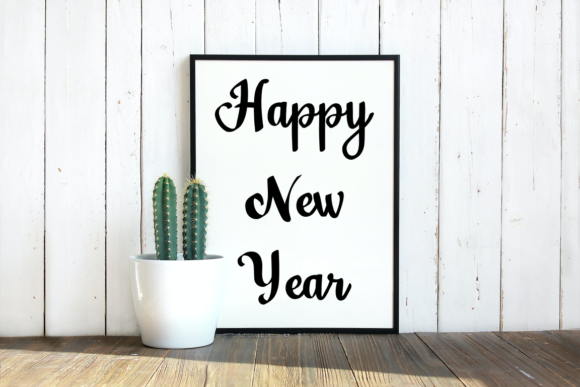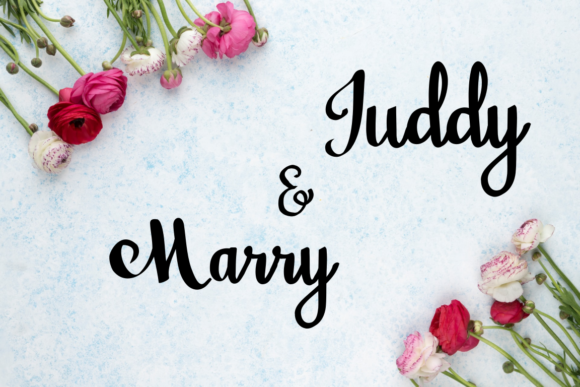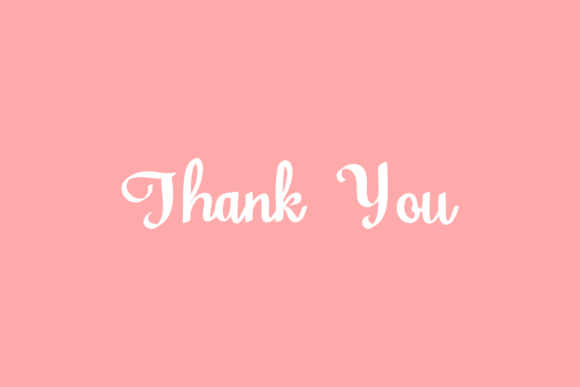
The Elegance of Anjani Font: A Designer’s Delight
I’ll never forget the time I was working on a wedding invitation project, and my client asked for a font that exuded elegance and sophistication. I scoured the internet, tried out countless fonts, but nothing seemed quite right. That was until I stumbled upon Anjani Font. ✨
Anjani Handlettering is an elegant script font with a contemporary atmosphere and impeccable form. Not too thin and not too thick, balanced and varied, this font was designed to enhance the beauty of your projects. In this article, I’ll share my experience with Anjani Font, its features, and how to make the most of it in your designs.
- ✨ Elegant and sophisticated feel, perfect for luxury brands and high-end designs
- ✅ Well-balanced and varied strokes, making it easy to read and visually appealing
- 💫 Supports OpenType features, allowing for creative freedom and flexibility
- 🎨 Perfect for a range of design projects, from wedding invitations to branding and packaging
While Anjani Font is an excellent choice, there are a few things to keep in mind: 🤔
- ⚠️ Some characters may not work well in very small sizes, so it’s best to use it at larger sizes (14pt and above)
- ⚠️ Limited availability of certain characters, such as ligatures and stylistic alternates, may require manual adjustments
The Backstory of Anjani Font
Anjani Font was designed with the intention of creating a beautiful, elegant script font that would meet the needs of designers. While the actual design process and inspiration behind Anjani Font may not be well-documented, it’s clear that the designer aimed to create a font that would be both refined and versatile.
| Font Name | Anjani Font |
| Author | Goodrichees |
Q: What type of designs is Anjani Font best suited for?
Anjani Font is perfect for designs that require an elegant and sophisticated feel, such as wedding invitations, luxury brands, and high-end packaging.
Q: Does Anjani Font support OpenType features?
Yes, Anjani Font supports OpenType features, including ligatures, stylistic alternates, and glyphs.
Q: Can I use Anjani Font in digital designs?
Yes, Anjani Font can be used in digital designs, such as website headers, social media graphics, and email marketing materials.